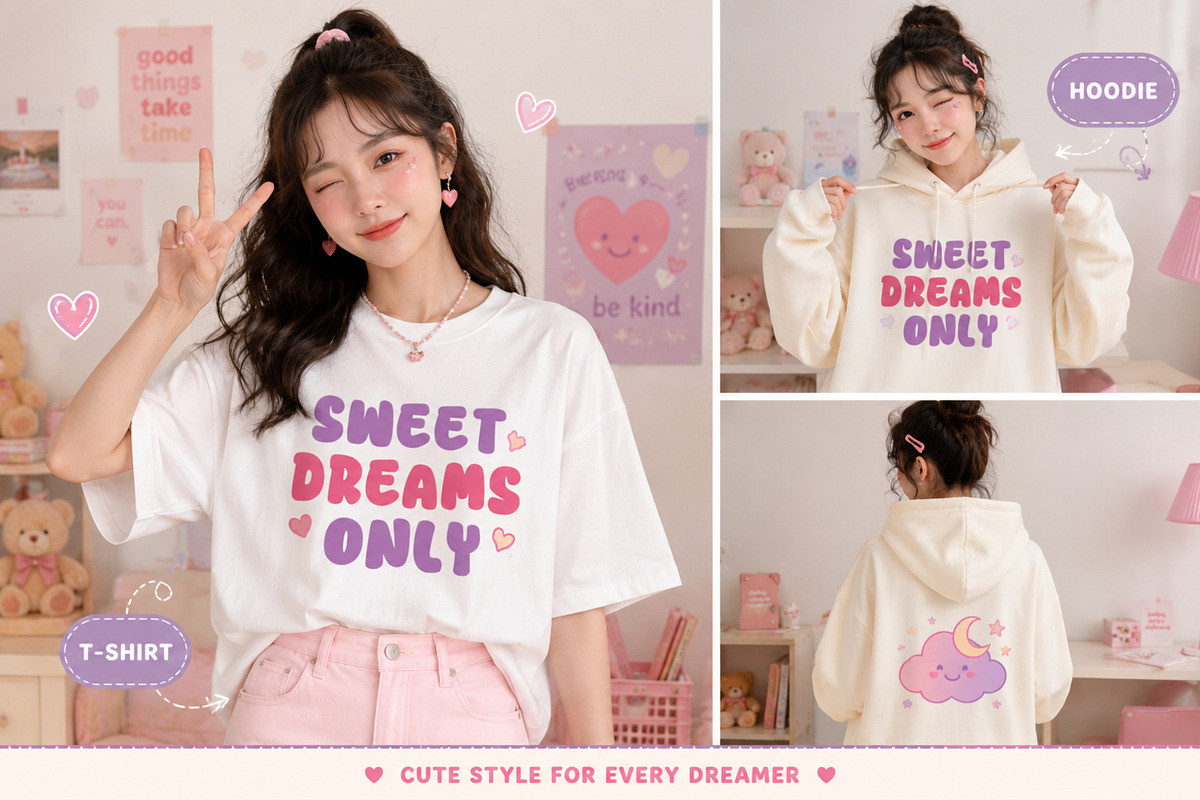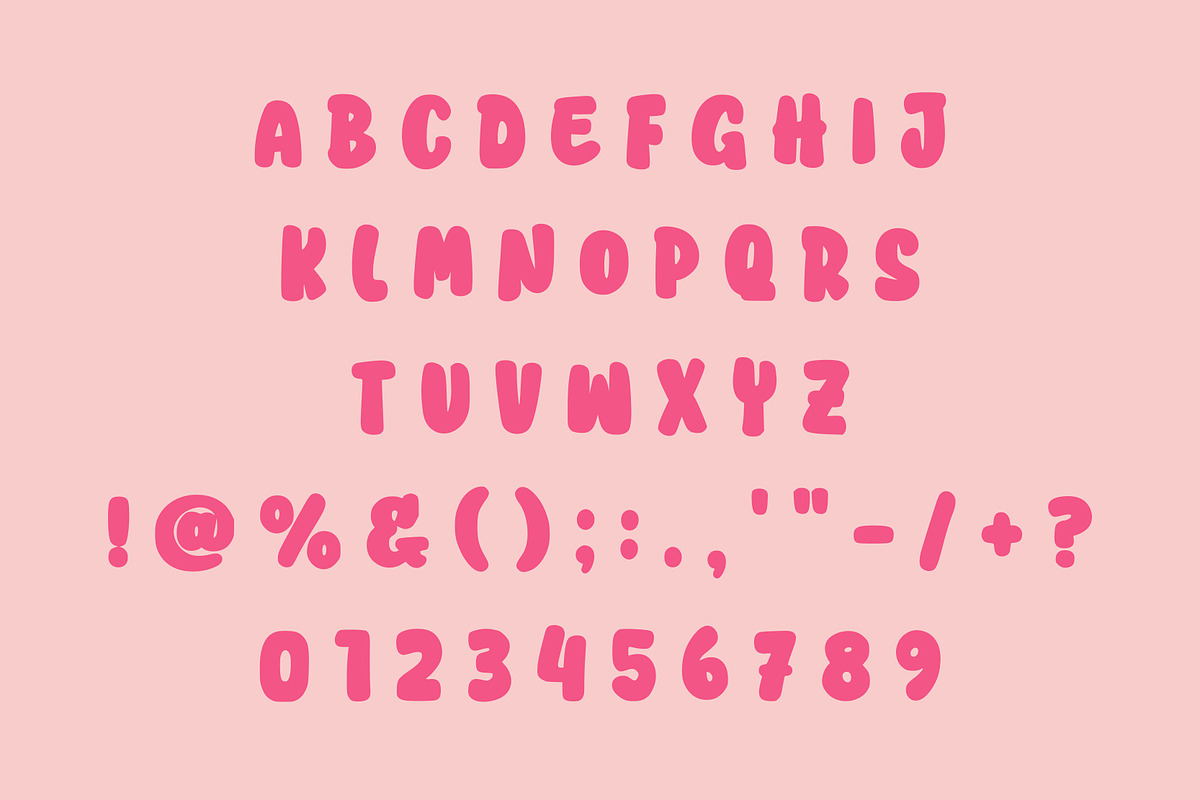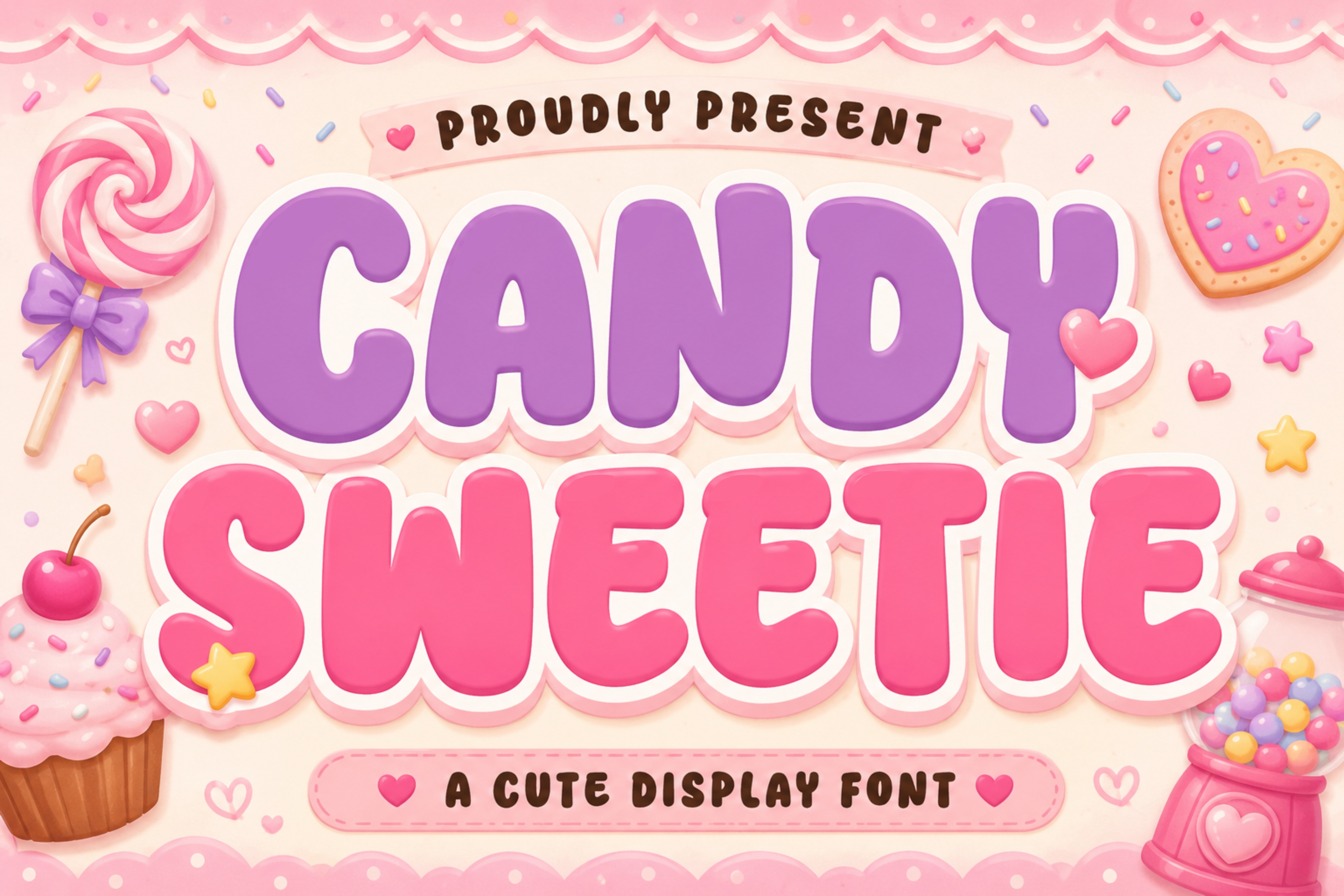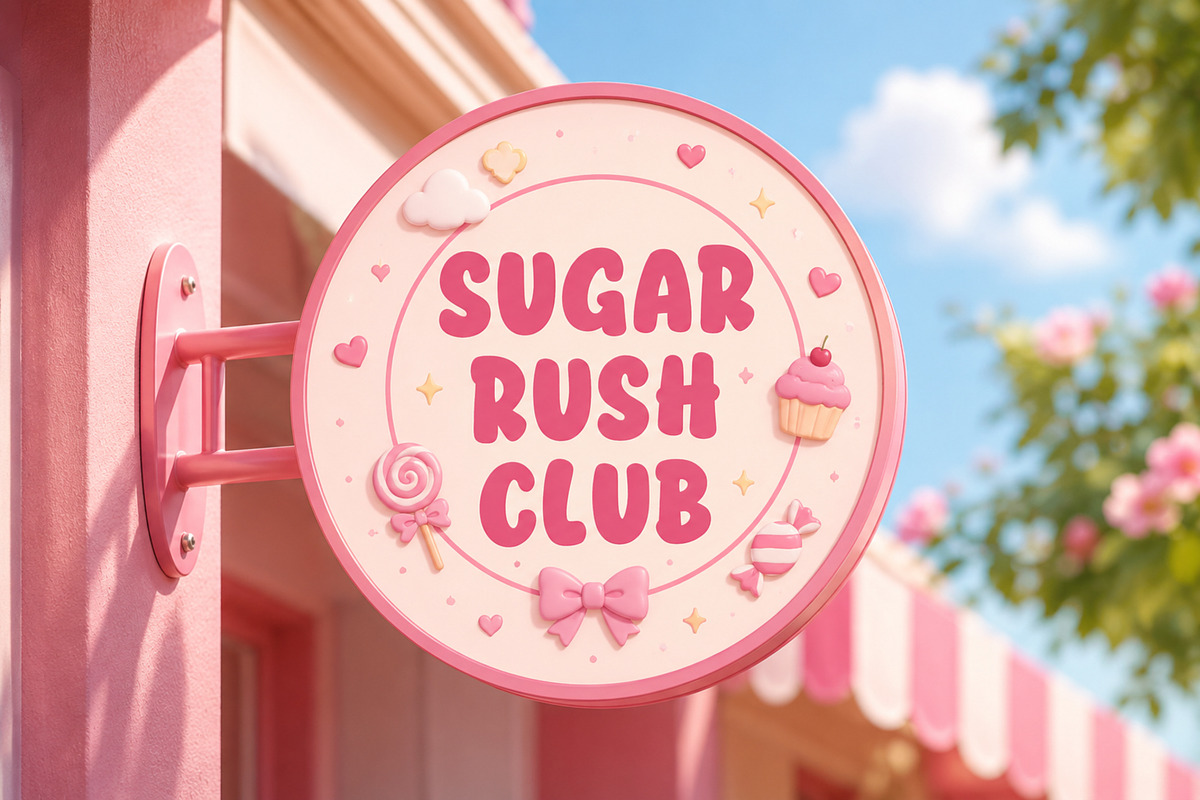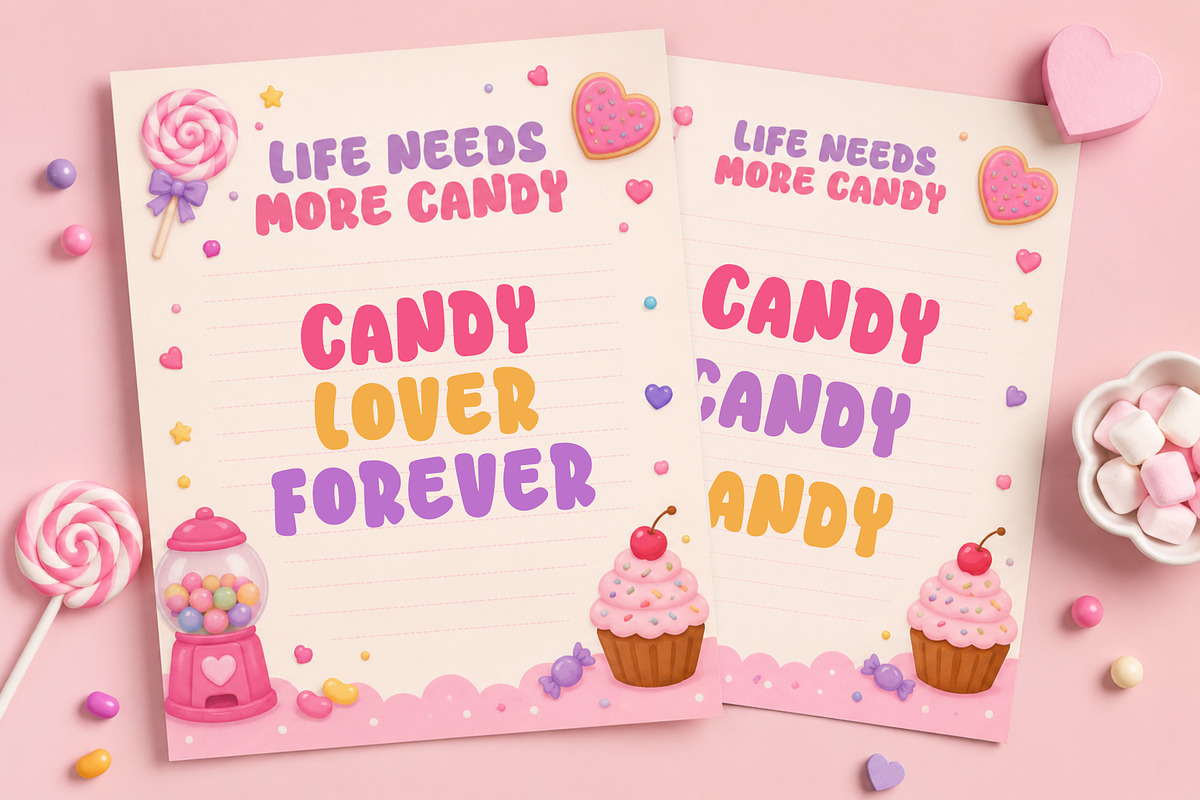
Candy Sweetie – Cute Bubble Font
Bring sweetness and joy to your designs with Candy Sweetie, a playful display font inspired by colorful candies, desserts, and happy childhood memories. Its thick rounded characters, smooth curves, and adorable personality make every design look friendly and eye-catching.
Whether you're creating branding for candy shops, kids' products, birthday party decorations, classroom materials, or printable crafts, Candy Sweetie adds a charming and delightful touch.
Kids branding
Candy & bakery packaging
Birthday invitations
Baby shower designs
Greeting cards
Stickers
T-shirt designs
Posters & flyers
Social media posts
YouTube thumbnails
Cricut & Silhouette projects
Printable decorations
Scrapbooking
Logos
Book covers
Cute bubble style
Bold display font
Smooth rounded edges
Easy to read
Kid-friendly appearance
Perfect for print & digital projects